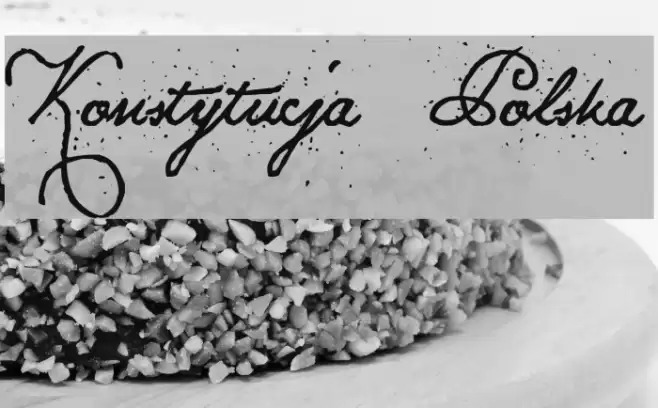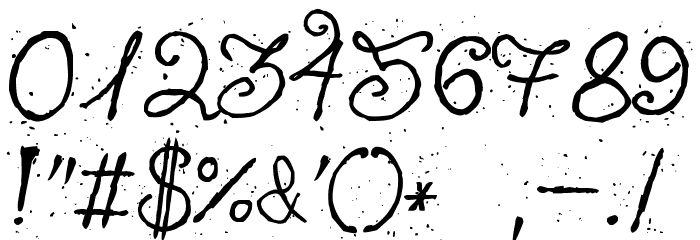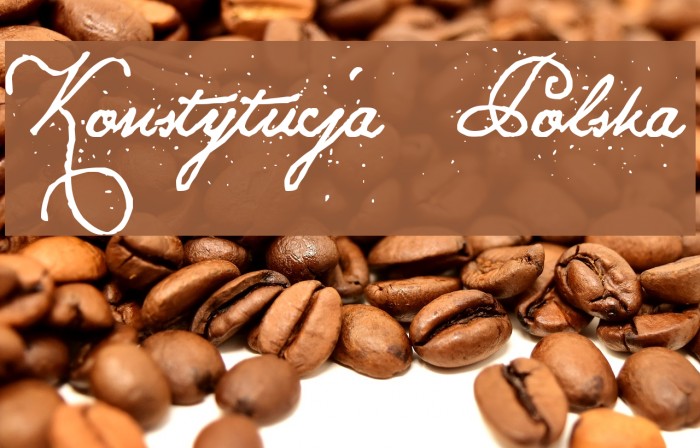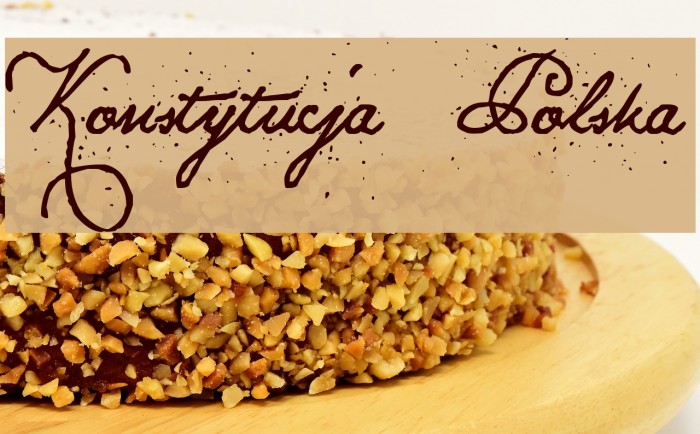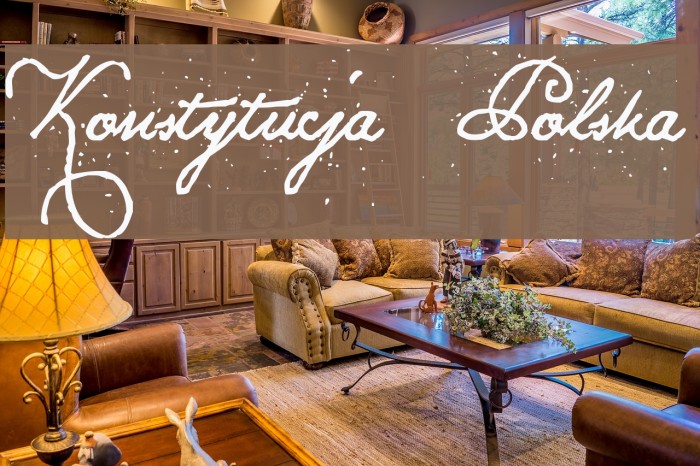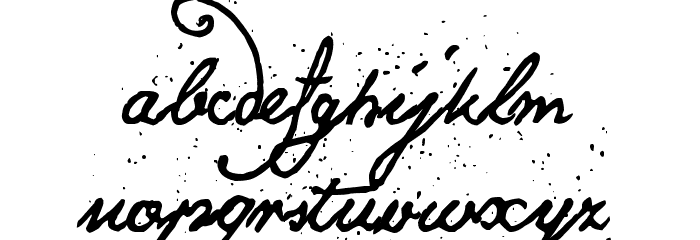
Konstytucja Polska Font
Konstytucja Polska Description
This font exudes an elegant and ornate style, characterized by its intricate swirls and flourishes. The uppercase letters are particularly decorative, with each character featuring unique embellishments that give it a vintage, calligraphic feel. The lowercase letters maintain a consistent flow, with smooth, connected strokes that enhance readability while preserving the overall decorative aesthetic. The numerals are equally ornate, with curves and loops that mirror the style of the letters. Special characters are designed with the same attention to detail, ensuring a cohesive look across all glyphs. This font is ideal for projects that require a touch of sophistication and historical charm.
An ornate, calligraphic font with intricate swirls and flourishes from Handwritten fonts.
- Font: Konstytucja Polska
- Proposed Projects: Ideal for wedding invitations, historical documents, branding for luxury products, and decorative signage.
- Overall Style: Vintage
- Use Case: Logos, Invitations, Decorative Text